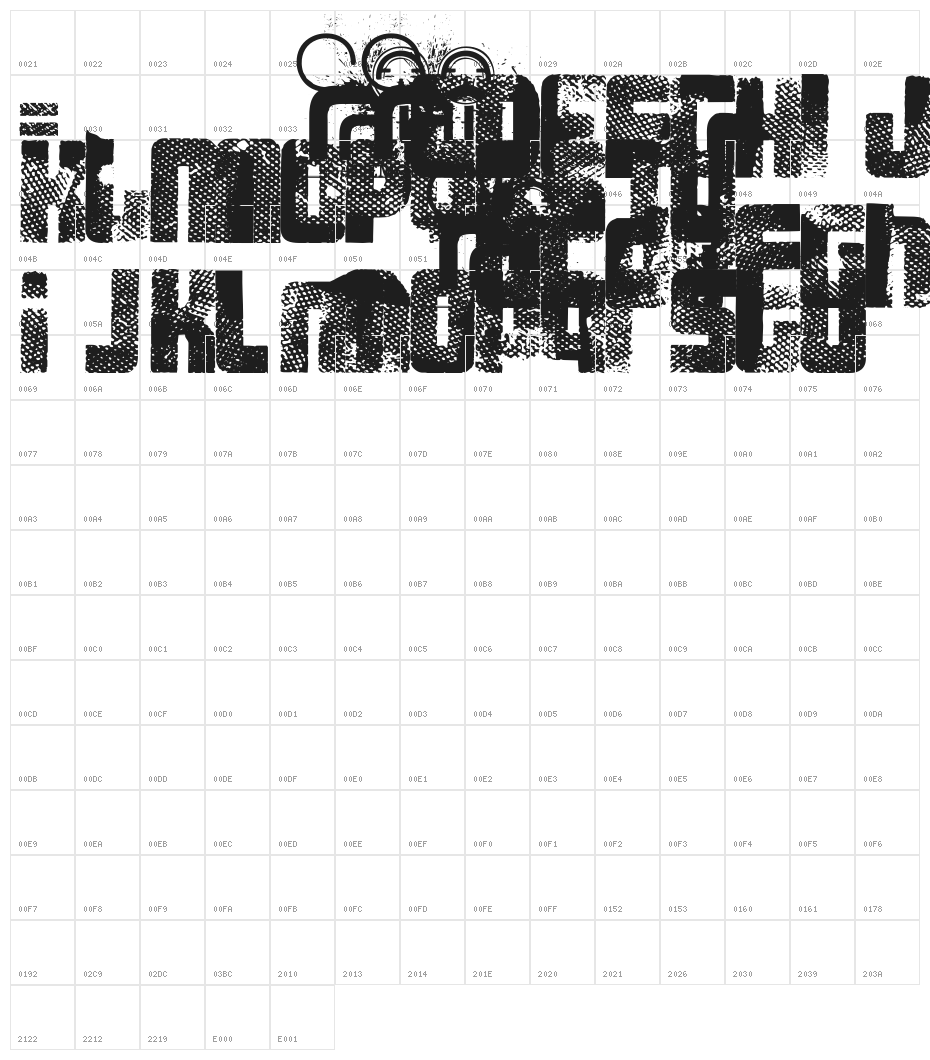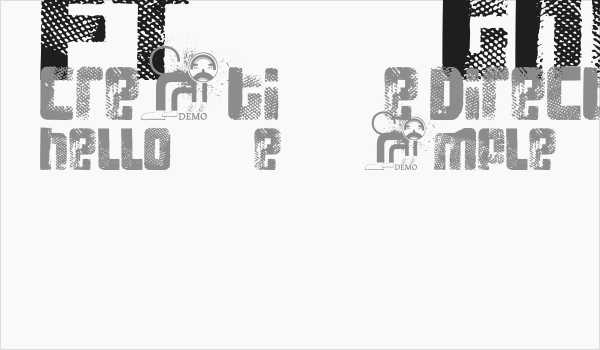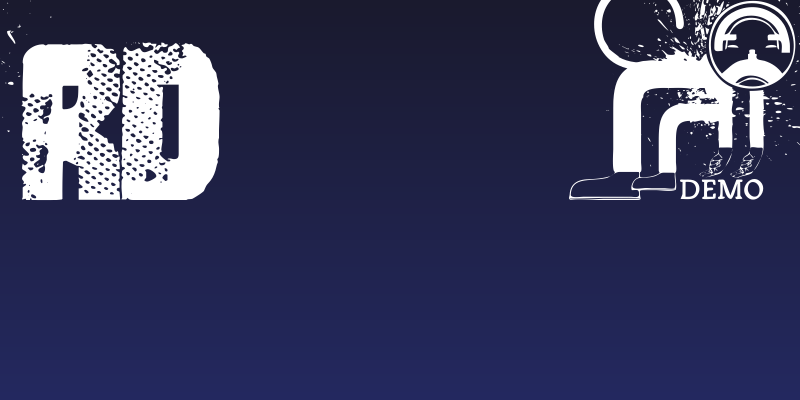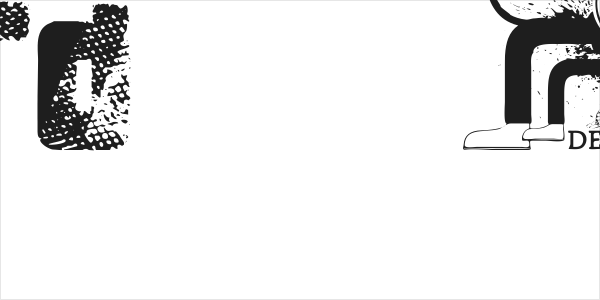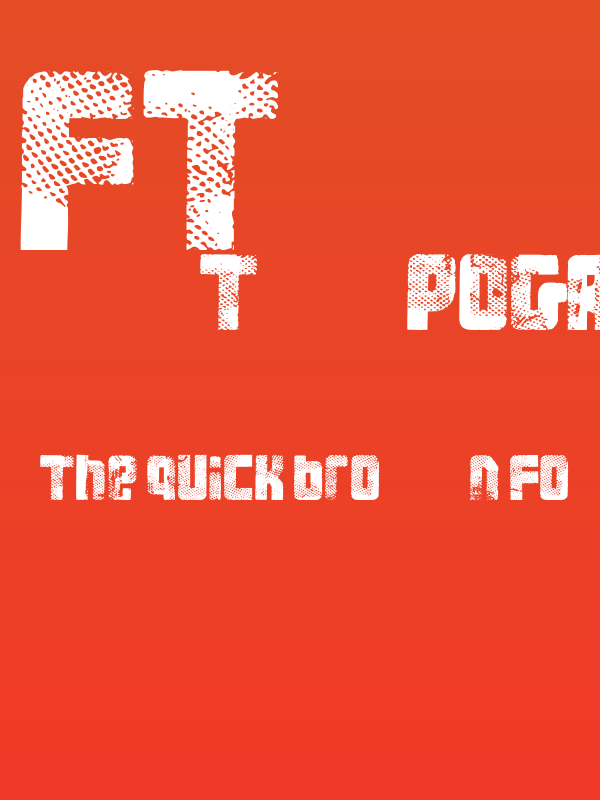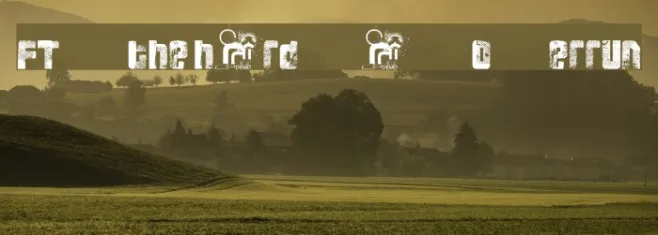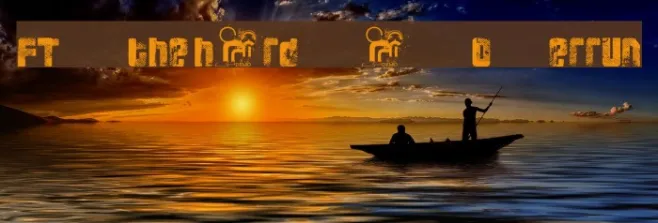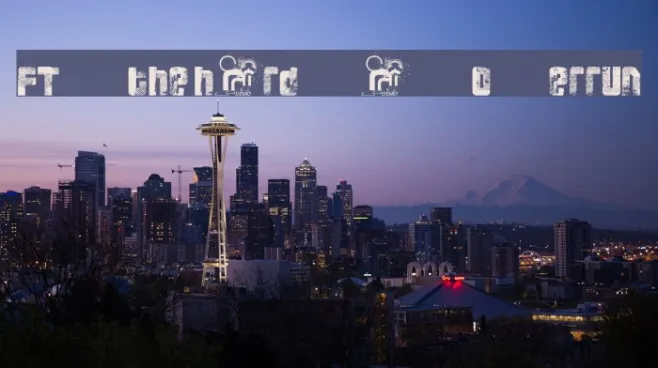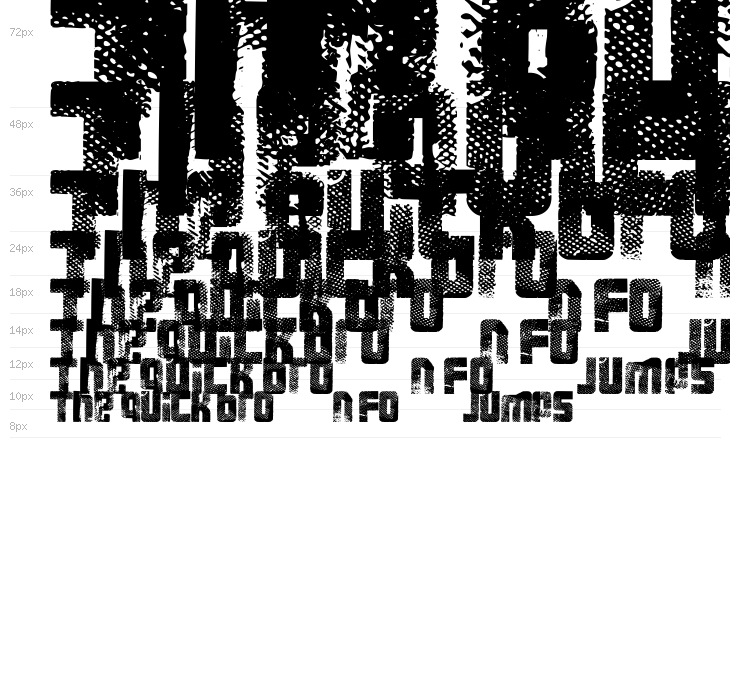
FT 3 the hard way Overrun Font
FT 3 the hard way Overrun Description
This font features a bold, distressed style with a textured appearance that gives it a rugged, industrial feel. The characters are blocky and robust, with a unique pattern that resembles a worn or weathered surface. The design incorporates a halftone effect, adding depth and a gritty, urban aesthetic. This font is highly decorative, making it suitable for projects that require a strong visual impact. The uppercase and lowercase letters maintain a consistent style, ensuring uniformity across text. The font's distinctive look is ideal for creative and edgy designs.
| Overall Style | Urban, Industrial, Gritty |
| Proposed Projects | Ideal for posters, album covers, streetwear branding, and urban-themed graphics. |